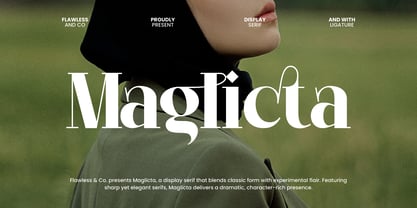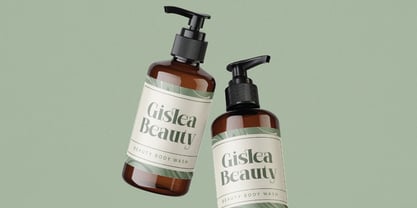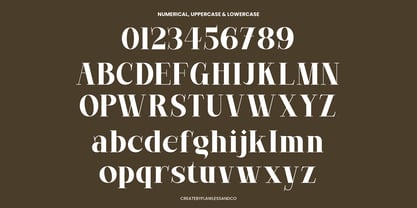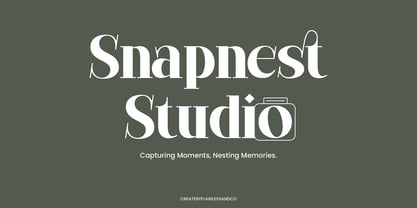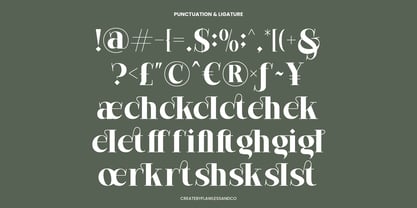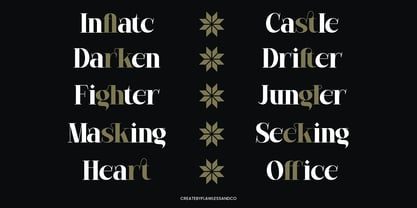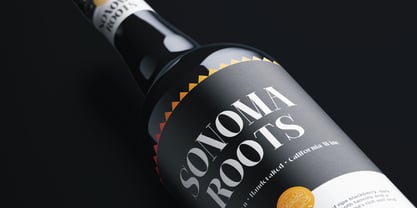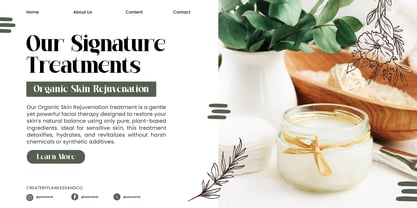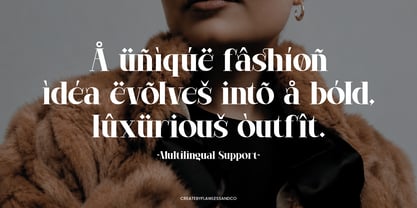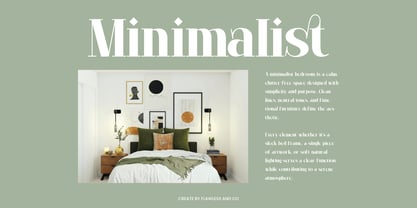
Maglicta
The Maglicta Font Family was designed by Achmad Yani and published by Flawlessandco. Maglicta contains 1 styles. More about this family
Maglicta is a striking serif display font that exudes sophistication and confidence. With its sharp contrasts, elegant curves, and bold presence, Maglicta is made to stand out in any visual composition. Perfect for designers seeking a luxurious and timeless typeface, Maglicta blends classic charm with a modern twist.
Features :
Multilingual, Uppercase alphabet A-Z, Lowercase alphabet a-z, Numbers 0-9, Some punctuation, Alternates & Ligatures